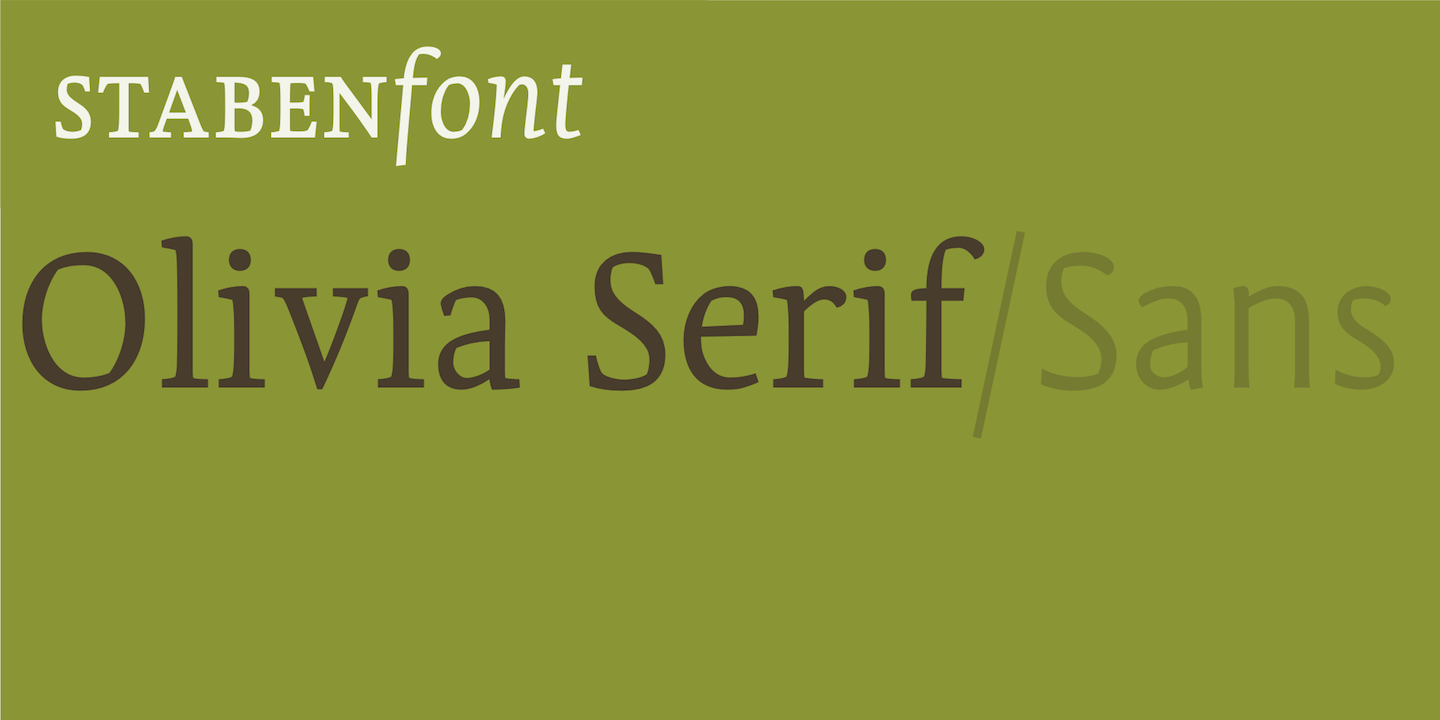
Olivia Serif Font Free Download is a timeless and elegant serif typeface that brings refinement, clarity, and a touch of luxury to your designs. Please note that you must purchase this font for commercial use. It is available for free download solely for personal and testing purposes.
You can use Olivia Serif Font in a variety of sophisticated design contexts such as editorial layouts, fashion magazines, high-end branding, corporate identity kits, luxury product packaging, formal event invitations, and stylish website headers. It’s a go-to font when your project needs to speak with intelligence and grace.
What makes Olivia Serif so exciting is its harmonious balance between classic structure and modern polish. With its clean lines, sharp serifs, and subtle contrast in stroke weights, it captures attention without being overwhelming — the perfect blend of professionalism and beauty.
The Olivia Serif Font family includes a curated range of styles such as Olivia Serif Regular, Olivia Serif Italic, Olivia Serif Bold, and Olivia Serif Thin, providing you with enough flexibility for headlines, body text, and everything in between.
If you're aiming to give your work a timeless, upscale tone, Olivia Serif Font Free Download is your ideal companion. Test it out today and experience how this refined typeface turns minimalism into elegance and makes your message stand tall with confidence.